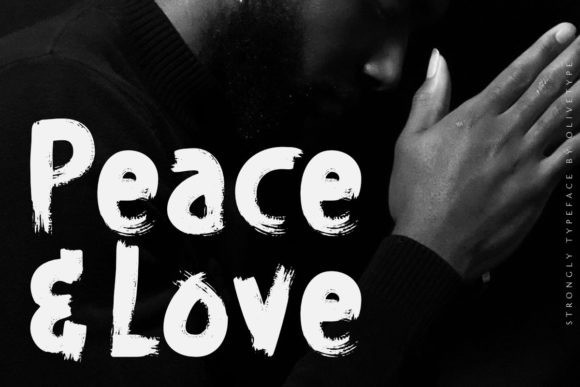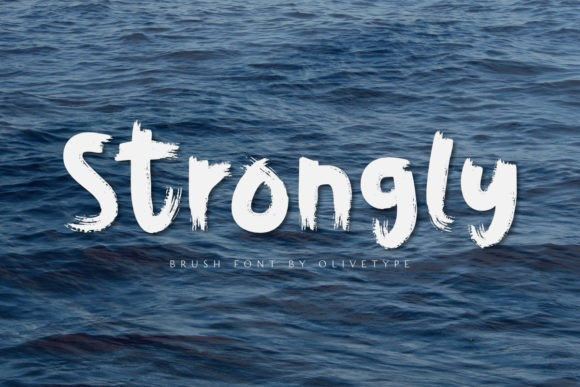
Strongly Font
Strongly Brush Font is a brushed and playful handwritten font. Its informal style and casual vibe will make this font a go-to choice for each of the creations that require a relaxed touch.